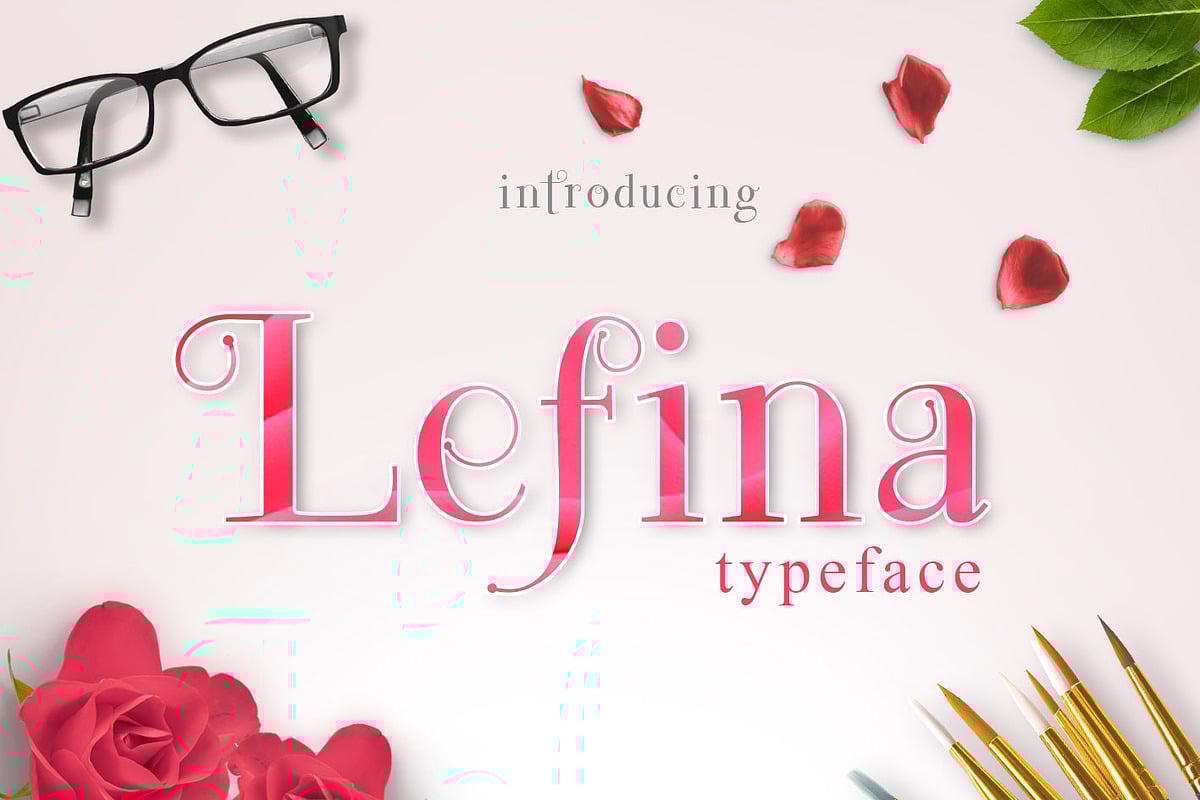
Lefina Typeface
Elevate your designs with Lefina, a stunning display serif font that blends modern sophistication with romantic elegance. This versatile typeface captures the perfect balance of contemporary style and romantic charm, making it ideal for luxury branding, editorial design, and feminine projects that demand attention. Lefina typeface comes in 2 distinct styles to give you creative flexibility for any project. Package includes: Lefina (.ttf & .otf) Lefina Duo (.ttf & .otf) Key features: Open...